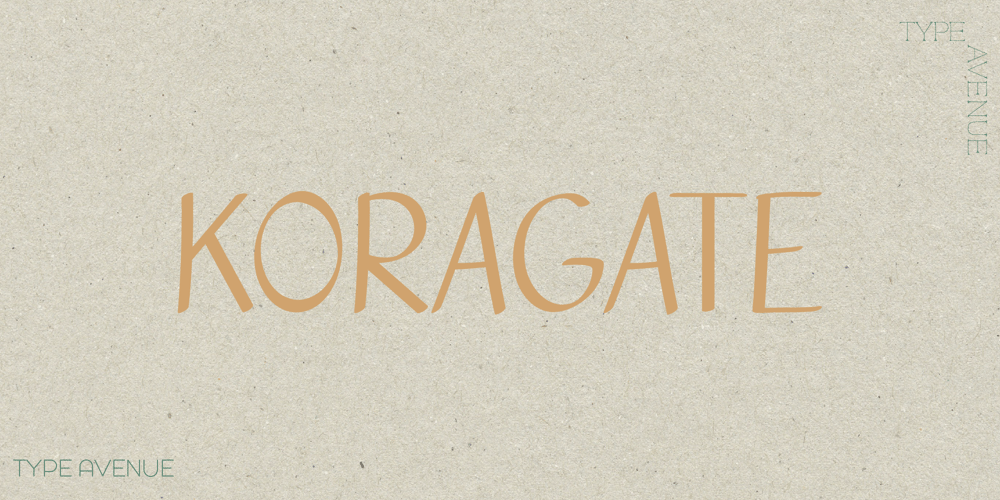
Koragate
Koragate font
Koragate Font Family was designed by Jess J and published by Type Avenue. Koragate contains 1 styles and family package options. Koragate is a neat font that is perfect for an organic handwritten look. It features slightly angled glyphs for a natural feel. This font is perfect for personal uses or branding for an informal bohemian look.